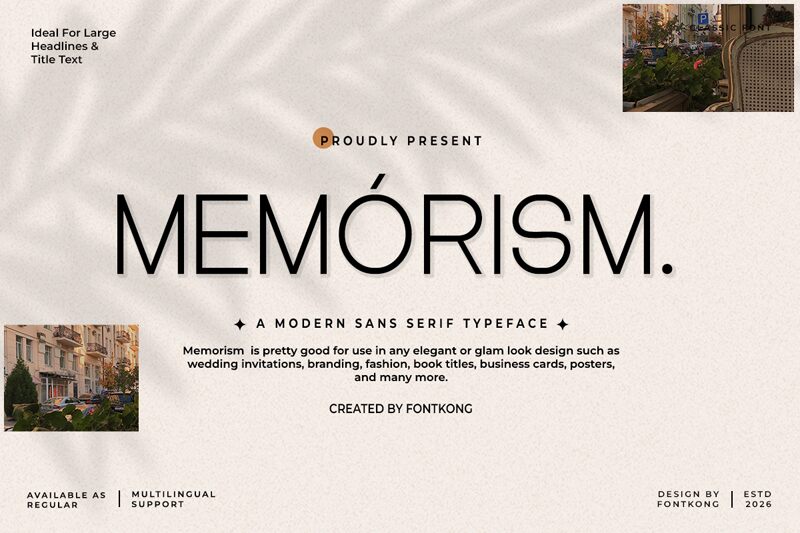
Memorism font by Kong Font is a contemporary sans-serif with an elegant and minimalist style. Its clean and refined appearance makes it suitable for various design projects, successfully fusing professionalism with modern aesthetics. This free font offers users a straightforward yet sleek option for visual communication.
The font is ideal for projects that require a modern and professional look. It can be effectively used in branding, advertising, web design, print design, packaging, presentations, business cards, invitations, brochures, and signage. Its minimalist design ensures that it delivers clarity and readability across various media platforms.